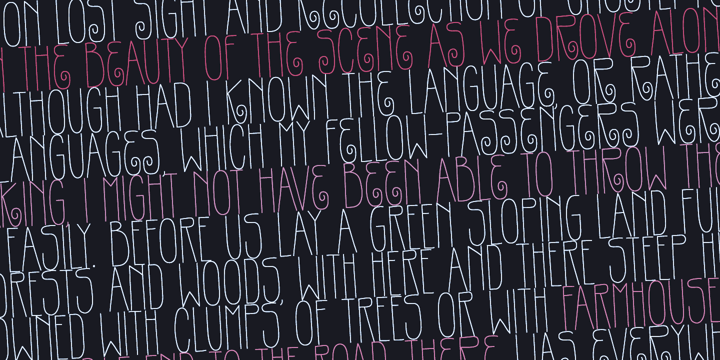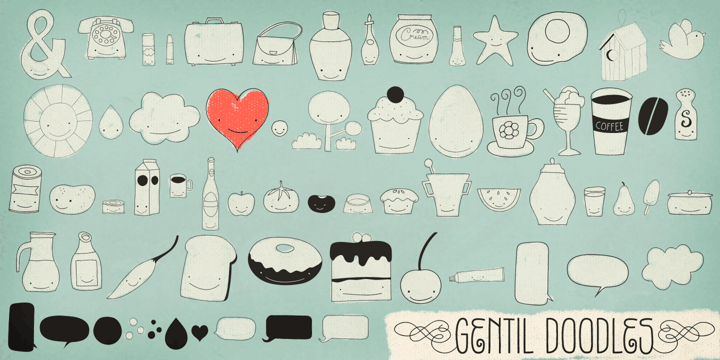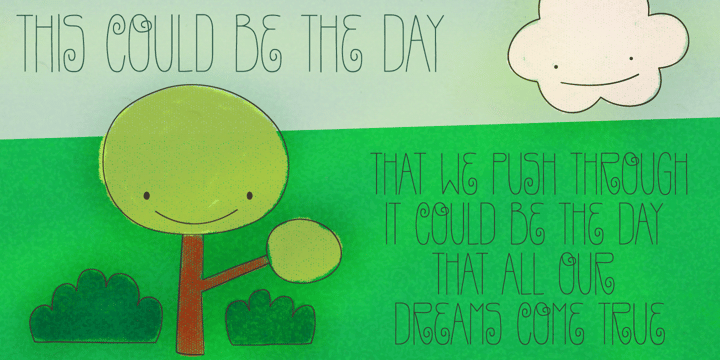
Gentil
by PintassilgoPrints
About Gentil Font Family
Gentil is a charming hand-drawn typeface. It comes in two weights along with two handy accessory fonts, one packed with darling doodles and the other loaded with lovely frames. Versatile, this very friendly family will certainly fit easily a wide range of design applications.